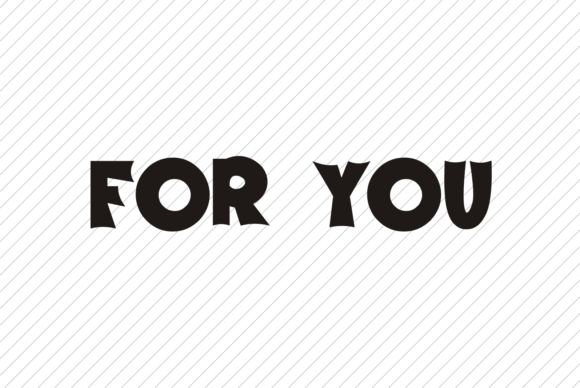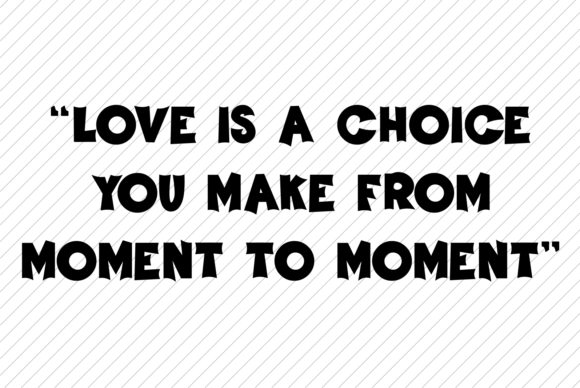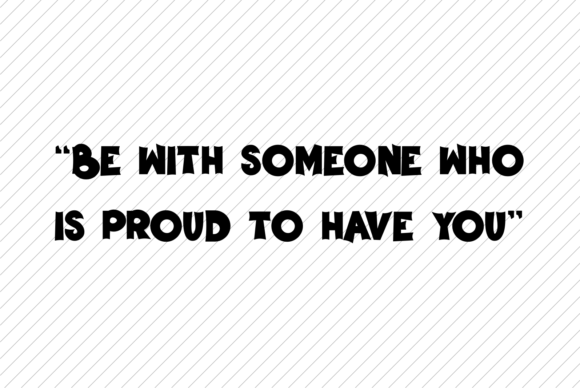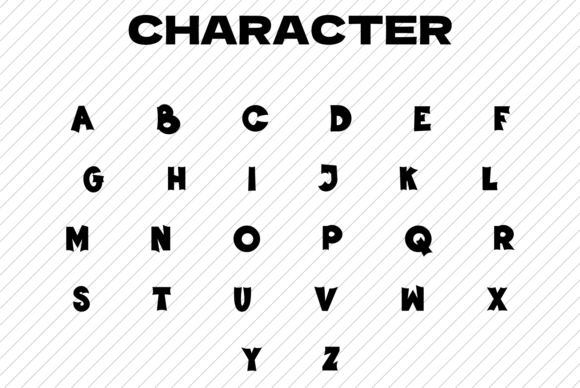
Fergas Font: The Ultimate Display Font for Creative Projects
In the world of design, typography plays a crucial role in making a project stand out. A font can make or break the visual appeal of a creation, and that’s where Fergas Font comes in. Fergas is a thick-lettered and cool display font that is simple yet packs a strong visual punch. In this article, we’ll dive into the features and benefits of Fergas Font and explore how it can elevate your designs to the next level.
The Power of Fergas Font
Fergas Font is a display font that boasts a unique and striking appearance. Its thick letters are carefully crafted to make a bold statement, making it perfect for designers and crafters looking to add some edge to their creations. The font’s simplicity is part of its charm, as it allows the user to convey their message with clarity and confidence. Whether you’re working on a logo, poster, or social media graphic, Fergas Font is sure to turn heads.
Key Features of Fergas Font
- Thick-Lettered Design: Fergas Font features thick, bold letters that make a lasting impression.
- Simple yet Impactful: The font’s simplicity belies its strong visual effect, making it perfect for designers who want to make a statement.
- Versatile: Fergas Font can be used for a wide range of projects, from logos and posters to social media graphics and more.
- Easy to Read: Despite its bold design, Fergas Font is easy to read, making it perfect for conveying messages and telling stories.
Benefits of Using Fergas Font
So, why should you choose Fergas Font for your next project? Here are just a few benefits of using this amazing display font:
- Instant Visual Appeal: Fergas Font instantly adds visual appeal to your creations, making them more engaging and attention-grabbing.
- Professional Look: With Fergas Font, you can give your projects a professional look that’s sure to impress.
- Unique Style: Fergas Font offers a unique style that’s sure to set your creations apart from the rest.
- Experiment with Sizes: Fergas Font looks great in a variety of sizes, so don’t be afraid to experiment and find the perfect size for your project.
- Play with Colors: Fergas Font comes in a range of colors, so try out different colors to see what works best for your design.
- Pair with Other Fonts: Fergas Font pairs well with other fonts, so try combining it with a complementary font to add some visual interest to your design.
In conclusion, Fergas Font is a powerful display font that’s perfect for designers and crafters looking to add some edge to their creations. With its thick-lettered design, simple yet impactful style, and versatility, Fergas Font is sure to become a go-to font in your design arsenal. Whether you’re working on a logo, poster, or social media graphic, Fergas Font is the perfect choice for making a lasting impression.